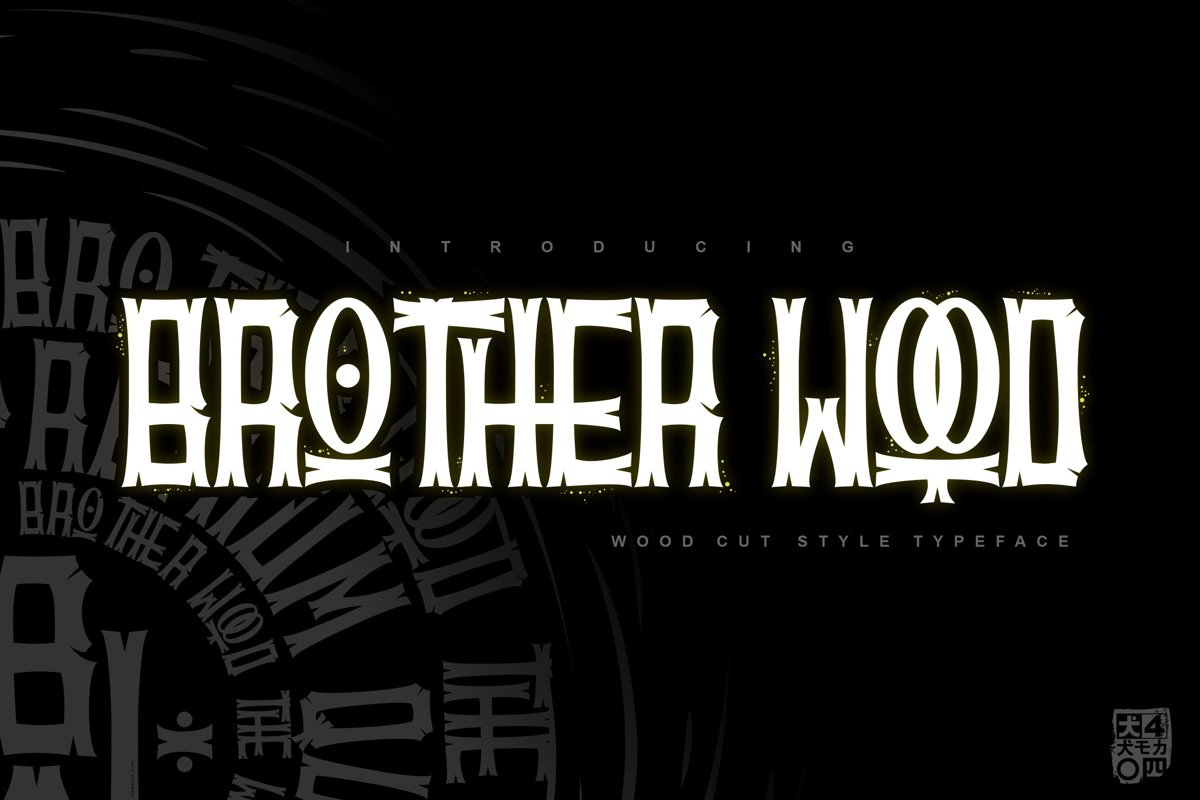
BROTHERwood
BROTHERwood its wood cut taste and hard like powerfull wood , really eyescathing, Modern and fresh, very supportive for you needs, make somethink differnt can into all genre in society now. not only writing, but giving character to writing, which will be able to give a different impression.BROTHERwood include
• Unique glyphs
• Multilingual Characters
• UPPERCASE
• Numeric
• Symbol
• Punctuation Character
• LIGATUREs